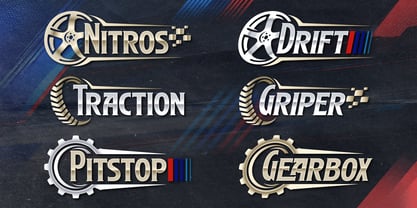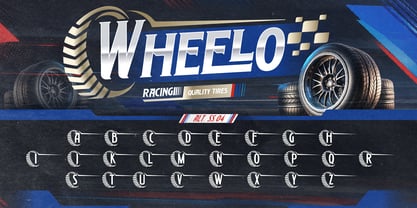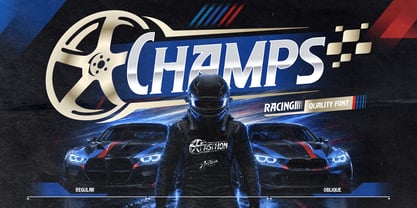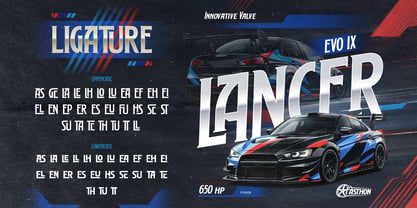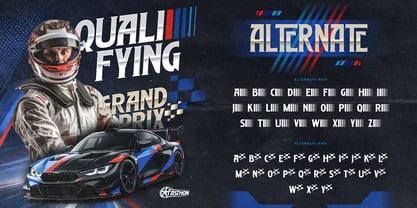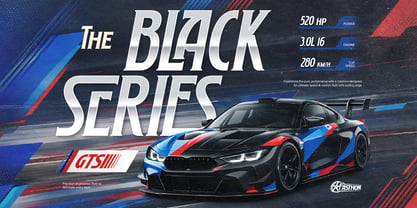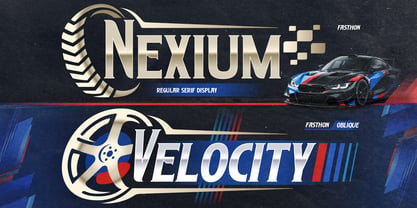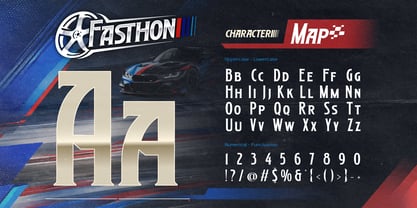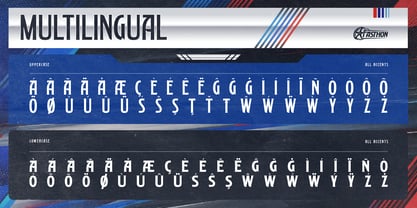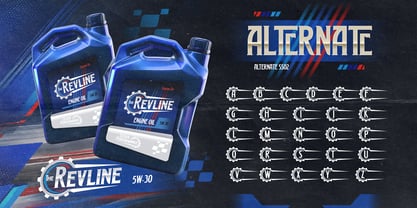
Fasthon
The Fasthon Font Family was designed by Meidy Meichico and published by Artisan Themes. Fasthon contains 2 styles and family package options. More about this family
Fasthon is a bold and dynamic display font inspired by the world of speed, racing, and high-performance automotive design. With its sharp edges, aggressive curves, and strong presence, this font instantly brings a sense of motion and power to your designs.
Designed to stand out, Fasthon combines a modern serif style with sporty italic (oblique) variations, making it perfect for projects that need energy, speed, and impact. Whether you're creating branding for automotive brands, racing events, or bold editorial layouts, Fasthon delivers a striking visual identity.
The font comes with Regular and Oblique styles, giving you flexibility to create both stable and fast-moving typography compositions.
Features: A - Z set (Uppercase & Lowercase All Caps), Number, Punctuation, Alternates, Ligatures, Multilingual